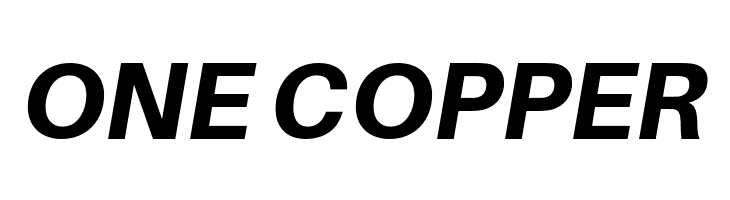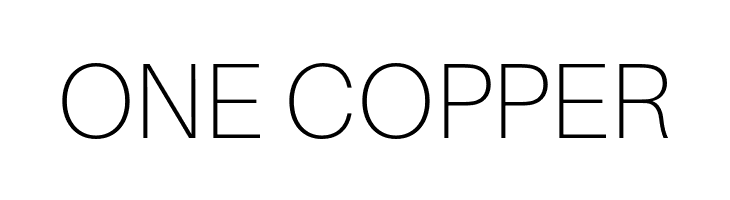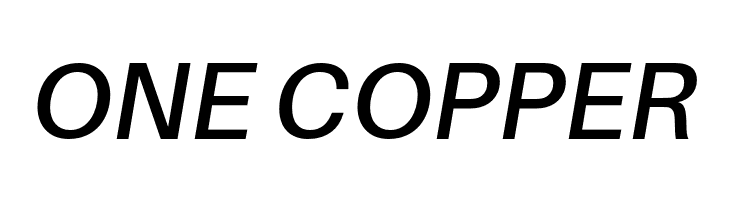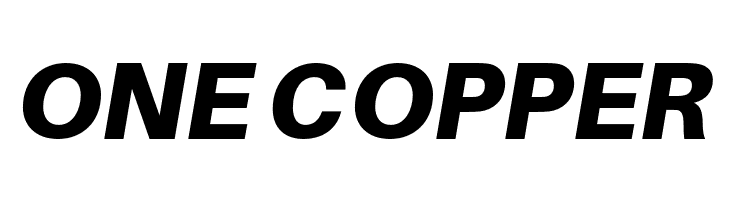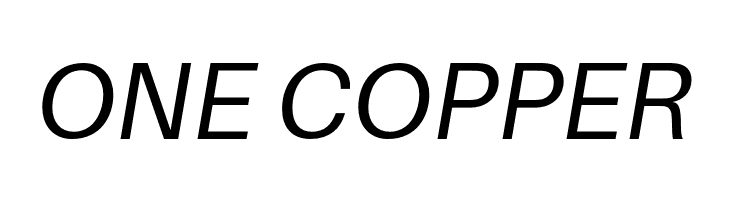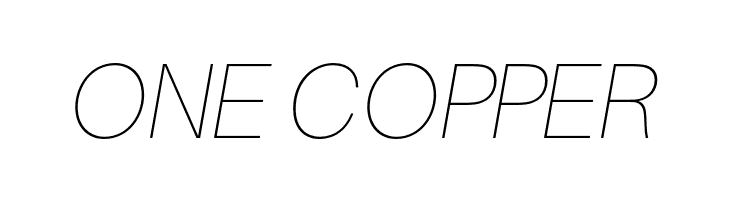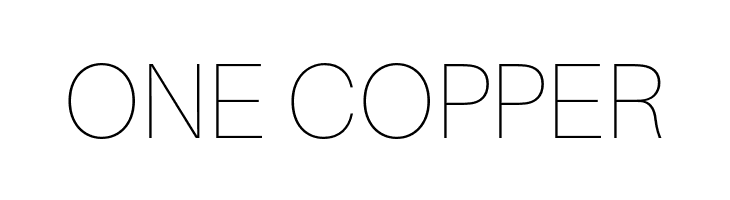
• Aileron
A modern, geometric sans-serif font with clean lines and excellent readability.
• Aileron
A modern, geometric sans-serif font with balanced proportions and clean lines.
• Aileron Black
A bold, modern sans-serif font with clean lines and uniform thickness.
• Aileron Black Italic
A bold, italic font with a modern and dynamic style.
• Aileron Bold
A bold, modern sans-serif font with excellent legibility and versatility.
• Aileron Bold
A bold, modern sans-serif font with excellent legibility and balanced proportions.
• Aileron Bold Italic
A modern, bold, and italicized typeface with consistent stroke thickness.
• Aileron Bold Italic
A bold, italic font with a modern and dynamic style.
• Aileron Heavy
A bold, modern sans-serif font with a clean and geometric design.
• Aileron Heavy
A bold, geometric sans-serif typeface with a modern and professional look.
• Aileron Heavy Italic